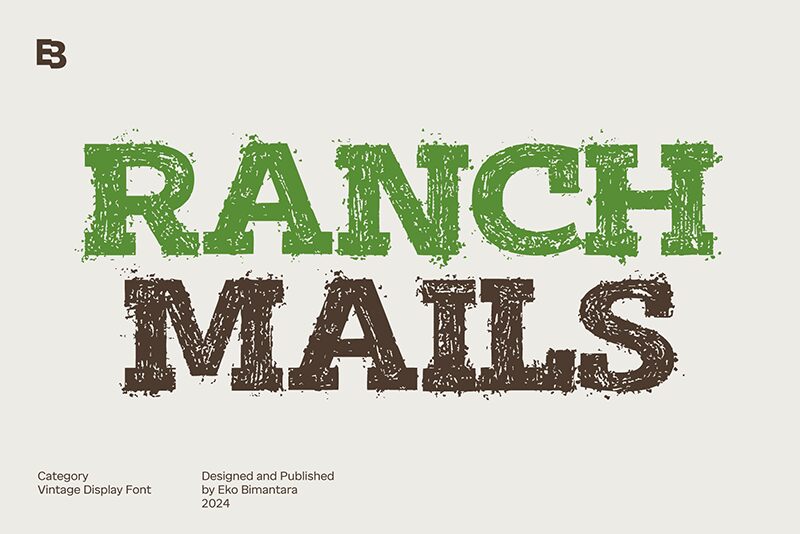
Ranch Mails font by Eko Bimantara is a bold grunge font that combines bounding edges with random eroded detailing. Its expanded letter shape forms give it an impressive presence that can be quite useful in making successful headlines. All the different attributes of the typeface contribute to its rugged appearance and vintage-inspired image.
Possible use cases for this free display font include album covers, book covers, posters, stickers, badges and pins designs, brochures and flyers headline text, t-shirt prints and apparel branding designs in general as well as classy business card designs. Ranch Mails is also appropriate for screen-based uses such as titles in web design or video editing.